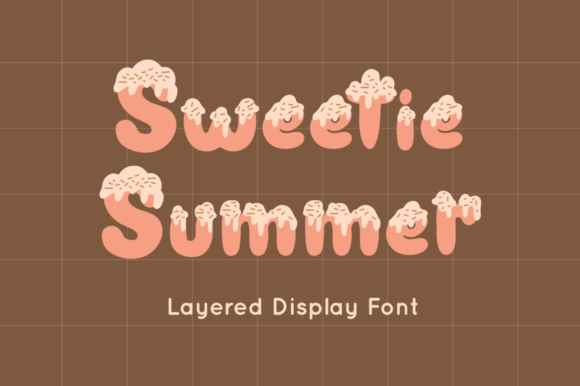
Introducing Sweetie Summer Font - A Burst of Fun and Creativity for Your Designs!
Step into a world of captivating designs with Sweetie Summer Font, an exquisite decorative font that exudes playfulness and authenticity. This charming font is the perfect choice for adding a touch of whimsy and uniqueness to your creative projects.
Picture this: You're designing a visit card for a children's party, and you need a font that captures the joyful spirit of the occasion. Look no further than Sweetie Summer Font! Its cheerful and playful vibe will instantly bring a smile to the recipient's face.
With its unique and eye-catching letterforms, Sweetie Summer Font is guaranteed to make your designs stand out. It's meticulously crafted to embody the innocence and imagination of childhood, making it the perfect font for school projects, classroom materials, and any design that targets a young audience.
Whether you're creating posters, flyers, logos, or social media graphics, Sweetie Summer Font will add a touch of magic to your work. Its versatility knows no bounds, allowing you to explore a wide range of creative possibilities.